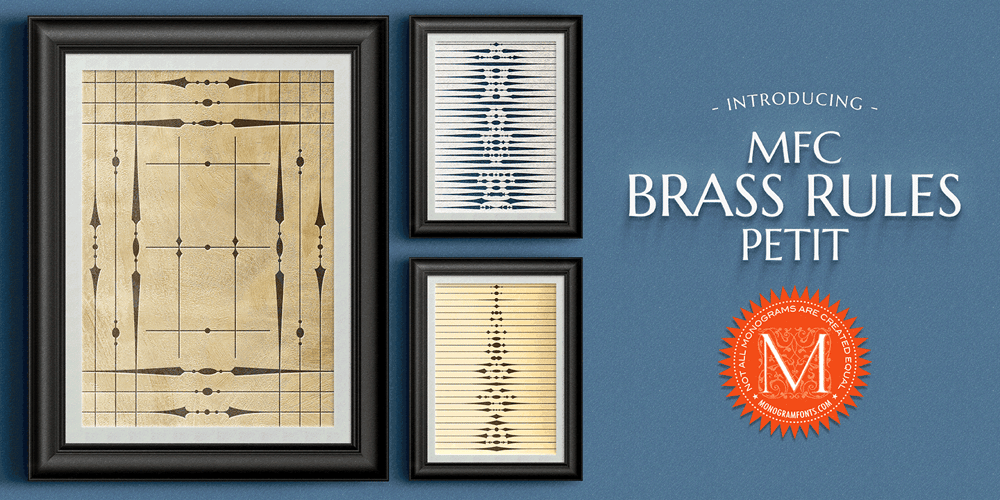
MFC Brass Rules Petit Font Family was designed by Brian J. Bonislawsky and published by Monogram Fonts Co.. MFC Brass Rules Petit contains 1 styles and family package options. Although brass line rules were a common feature in almost every vintage type catalog, these were recreated from those by the Franklin Type Foundry. Filling the Numerals and all Capital and Lowercase glyph slots are a total of 62 traditional Brass Rule designs, all extendable by combining with other rules, or by extending the pin line by simply typing a dash “-“. A truly sleek and simple utilitarian font for invitations, menus, business cards, and whatnot. Download and view the “MFC Brass Rules Petit Guidebook” if you would like to learn a little more.